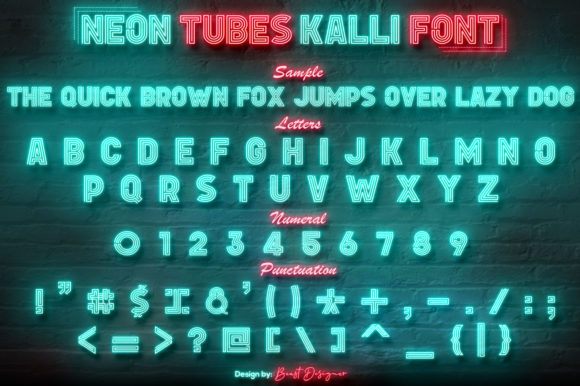
Introduction to Neon Tubes Kalli Font
Neon Tubes Kalli is a cool, retro styled and fun display font.
It has a whimsical style and it will undoubtedly immerse your designs into a magical world .
Key Features of Neon Tubes Kalli Font